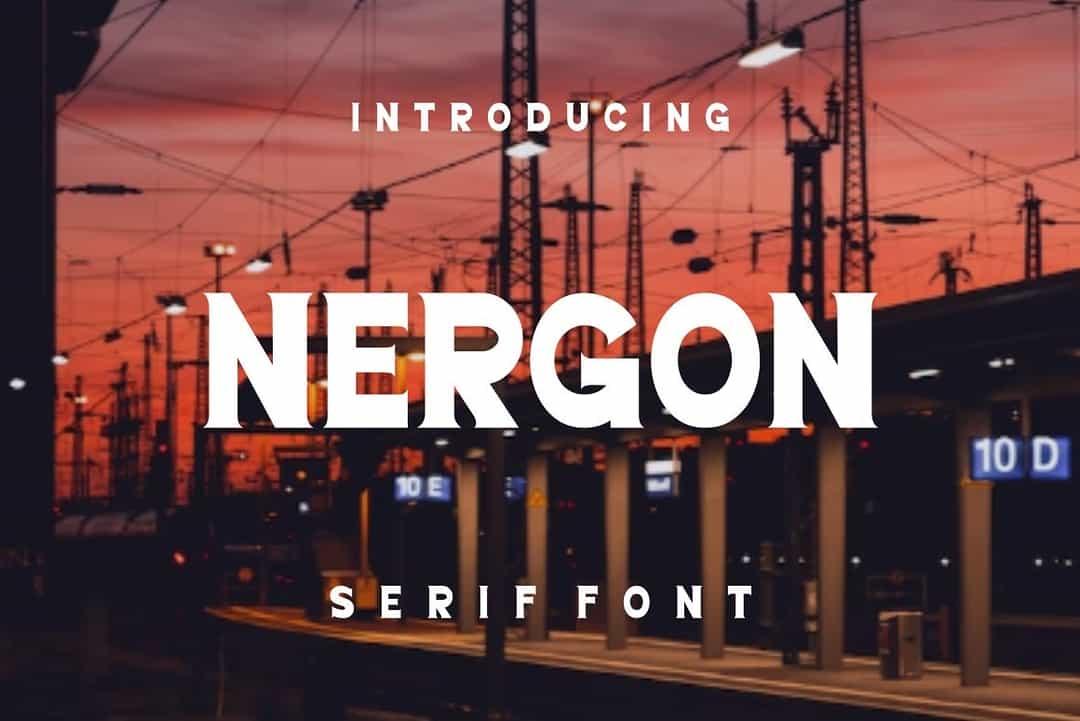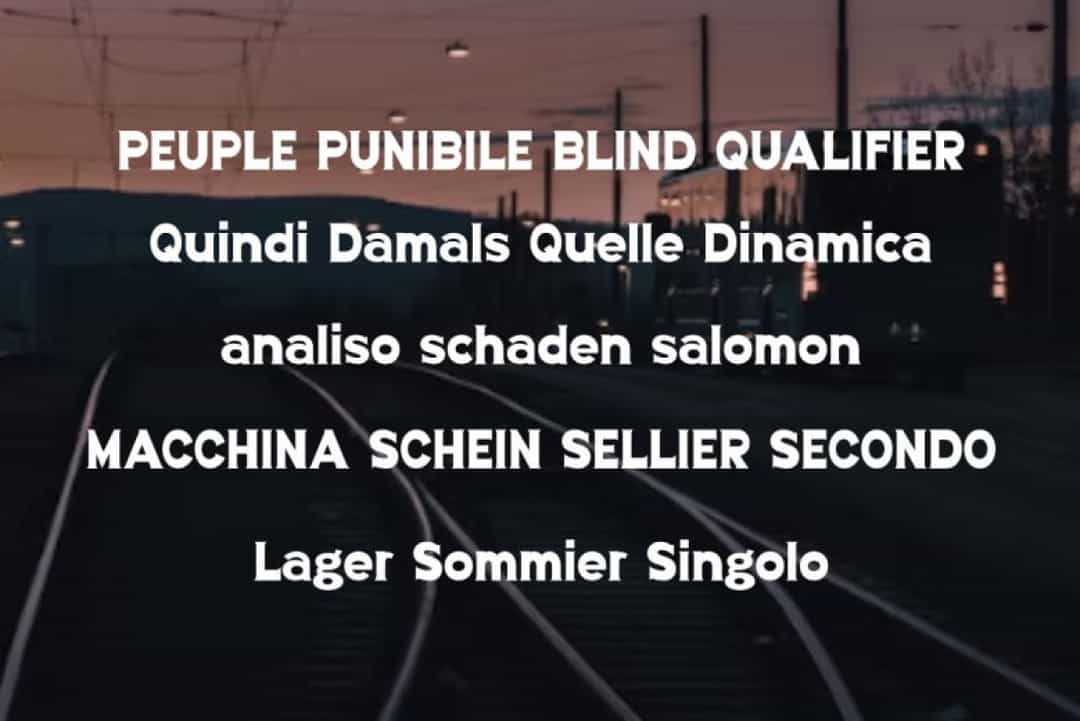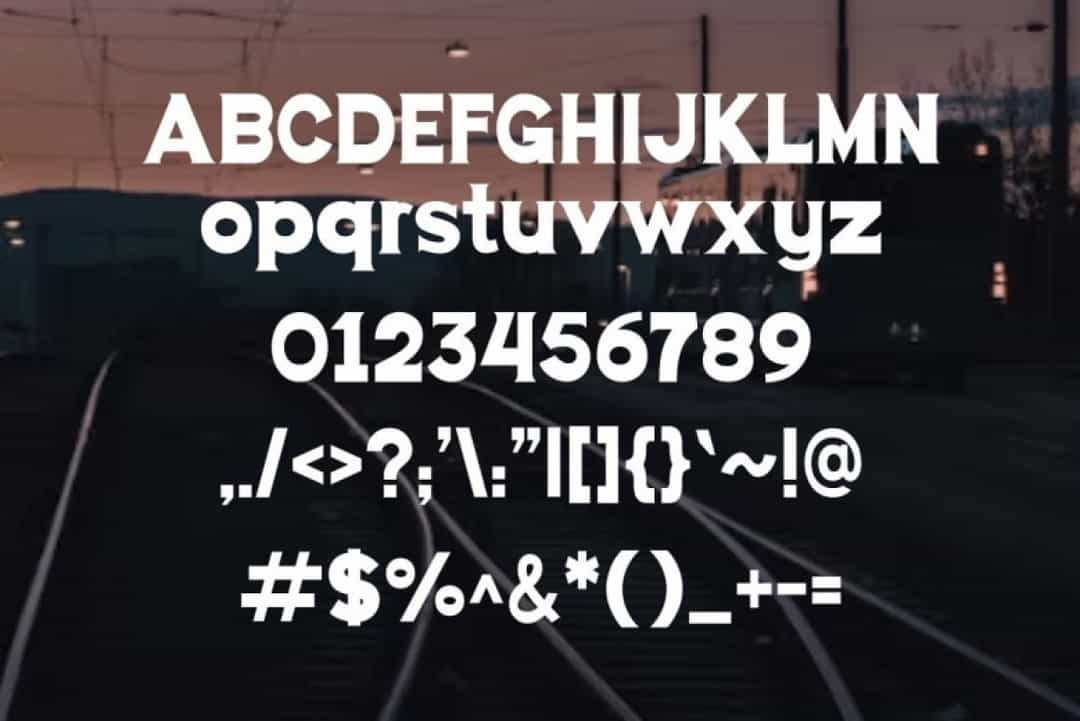
Nergon is an eye-catching serif font. Perfect for printing or screen use, its versatility can enhance any font in your font library and it makes an outstanding addition. Nergon works especially well when used for branding Name cards, posters, name cards or logos as well as magazine cover banners or t-shirt headers – it even works well in large-scale artwork!